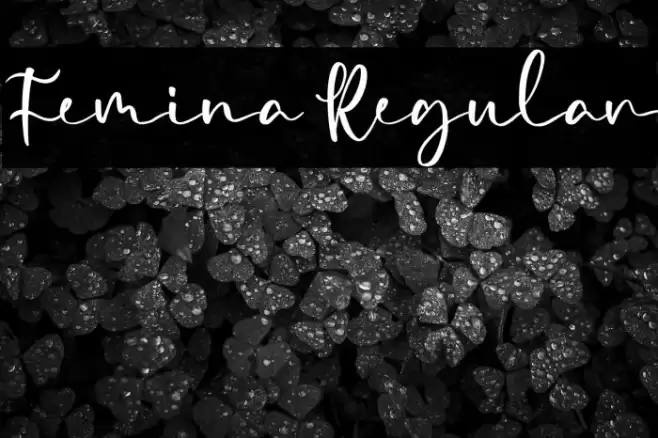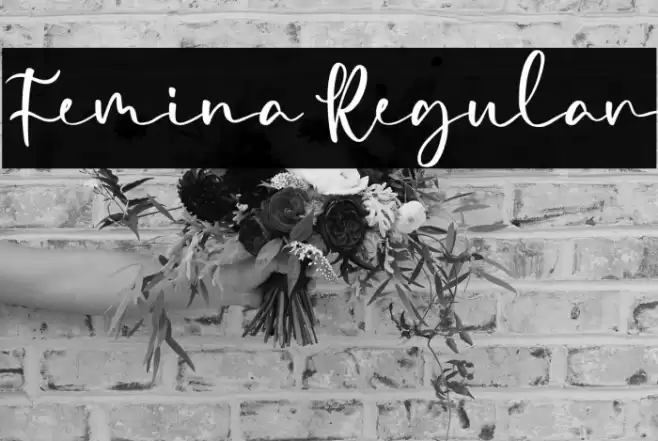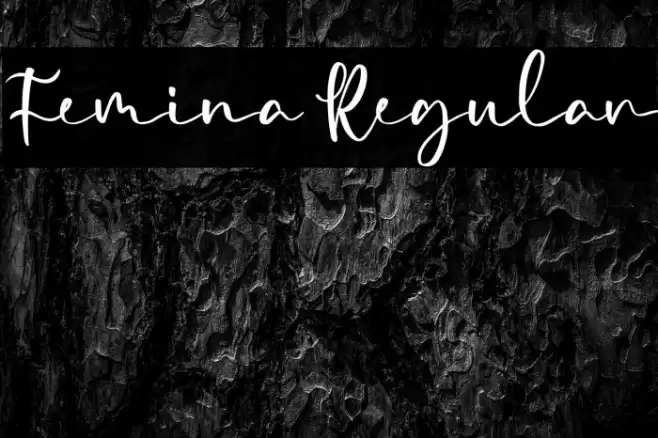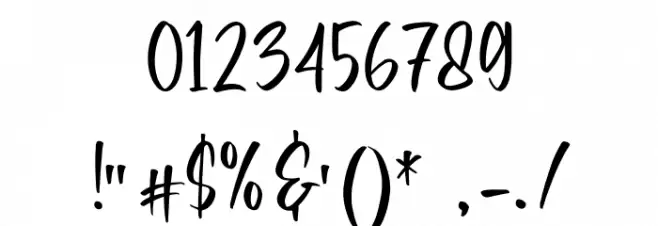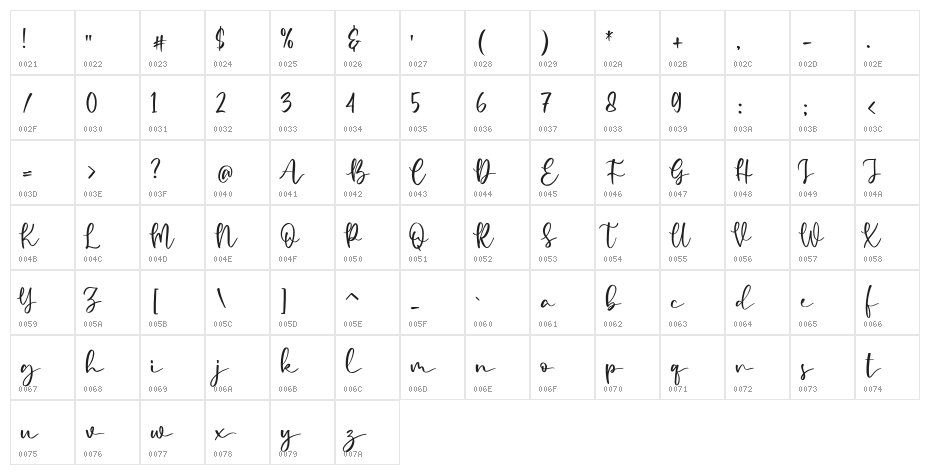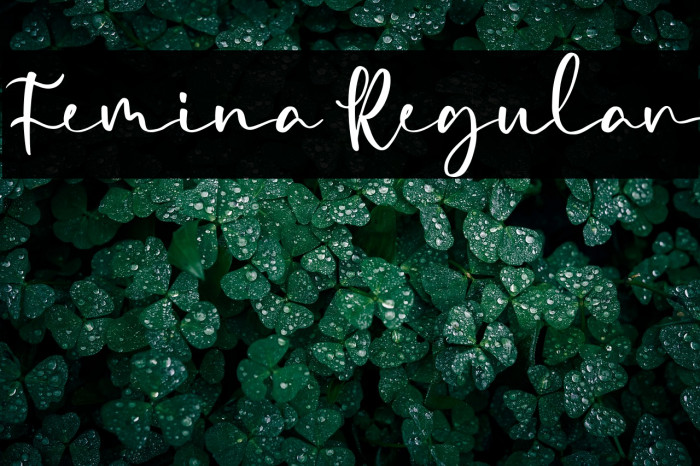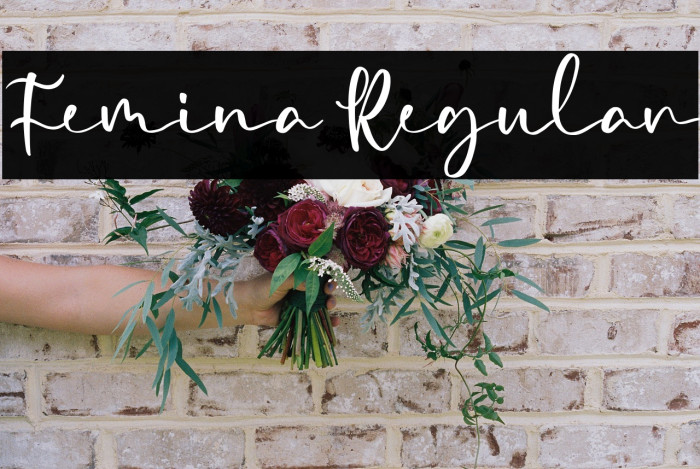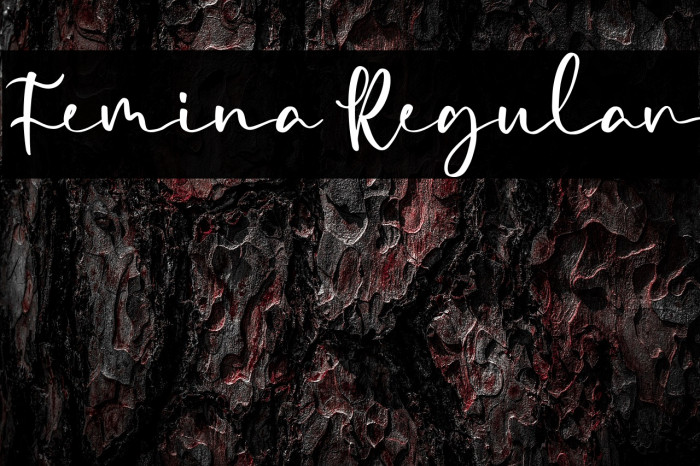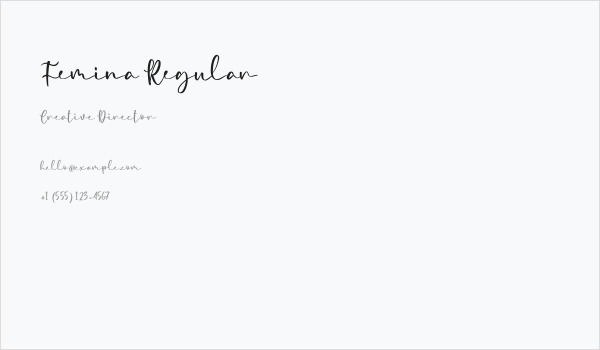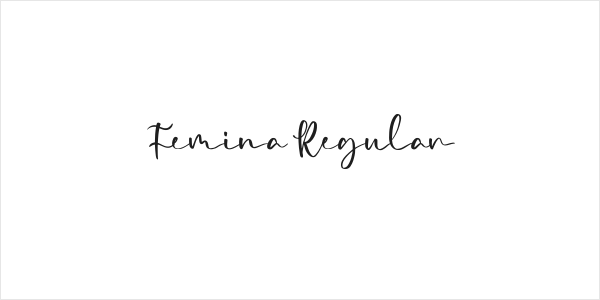
Femina Regular Font
Femina Regular Description
This font features a lively and flowing script style, characterized by its elegant, cursive letterforms. The uppercase letters are bold and dynamic, with sweeping curves and loops that convey a sense of movement and grace. The lowercase letters maintain a consistent fluidity, with smooth connections between characters, enhancing the handwritten aesthetic. The numerals are clear and legible, maintaining the same cursive style, which adds a playful yet sophisticated touch. Special characters are creatively integrated, maintaining the overall aesthetic while ensuring readability. This font is perfect for projects that require a personal and artistic touch, such as invitations, greeting cards, or branding materials.
A lively and elegant script font with flowing, cursive letterforms from Regular fonts.
- Font: Femina Regular
- Proposed Projects: Ideal for wedding invitations, personal branding, greeting cards, and artistic projects.
- Use Case: Logos, Invitations, Artistic projects